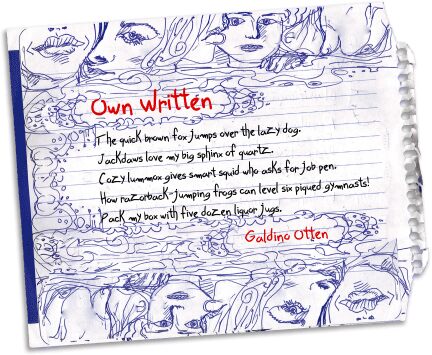
Own Written by Galdino Otten is a free handwritten font with tall, loosely drawn letters and emphatic changes in stroke width and pressure. The lettering feels quick, lanky, and deliberately uneven.
Casual burger shops, food trucks, and neighborhood cafes could use it for branding that suggests notes scrawled directly onto a menu board. It also suits music posters and informal event graphics, especially when the lettering needs to feel immediate and personal rather than carefully typeset, and its clearest role is giving food packaging the directness of a hand-marked label.